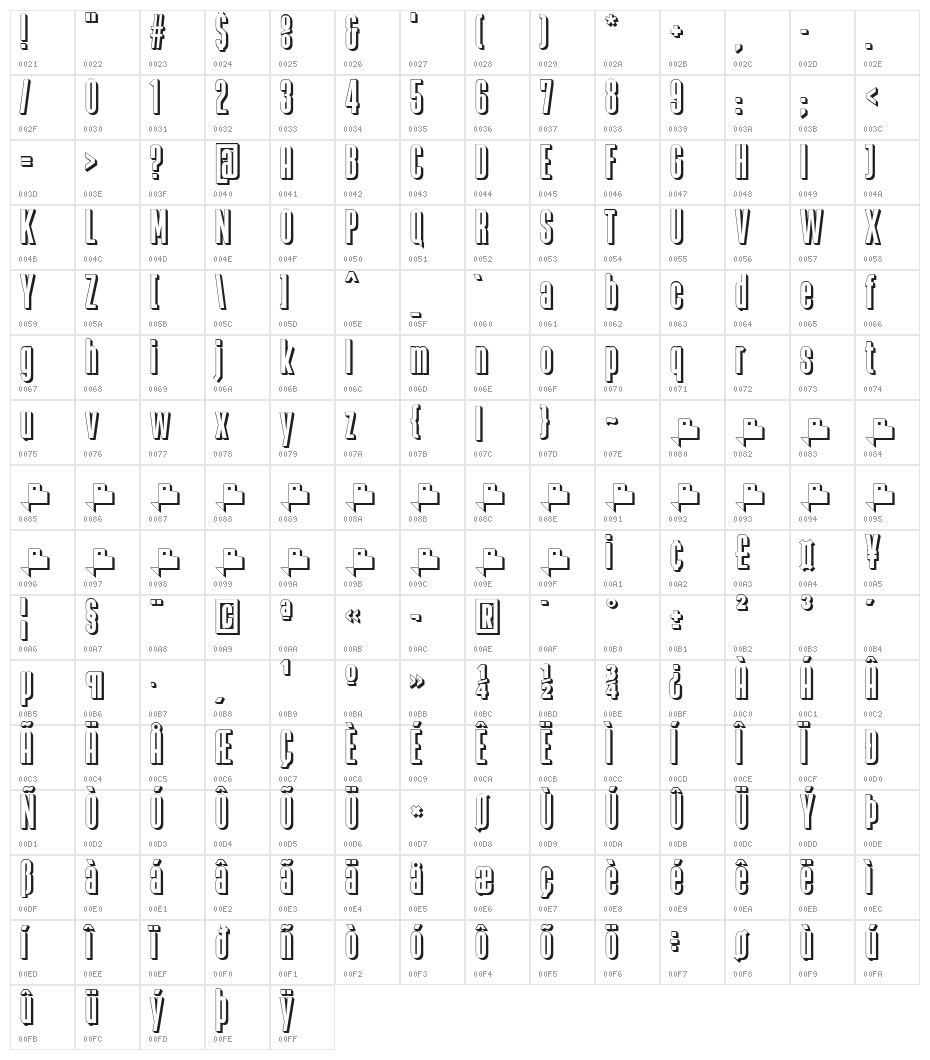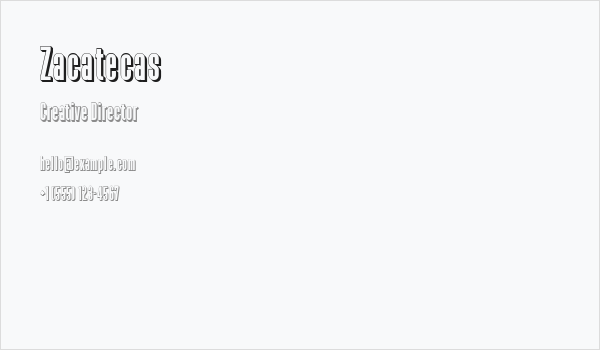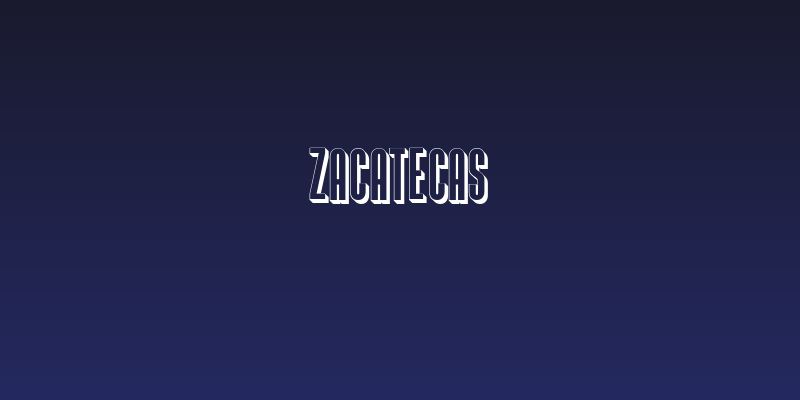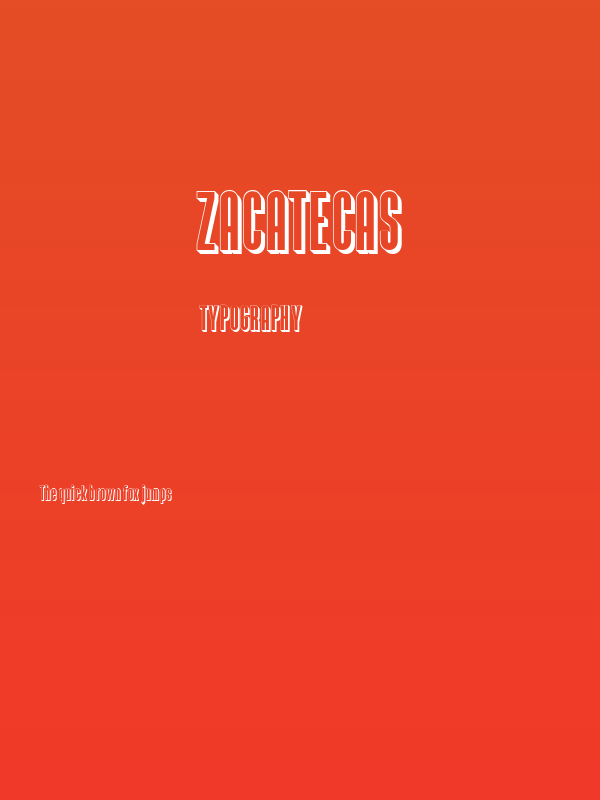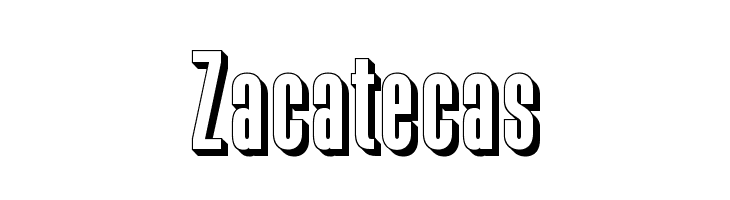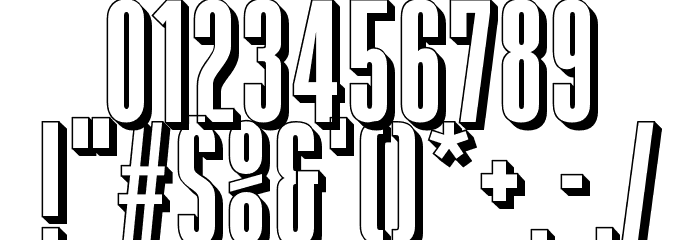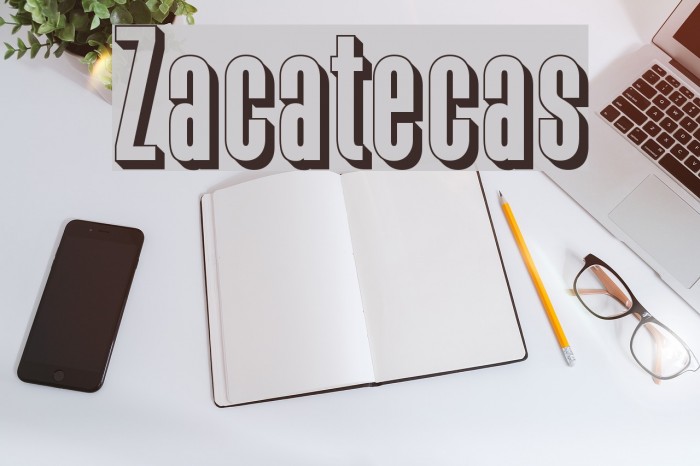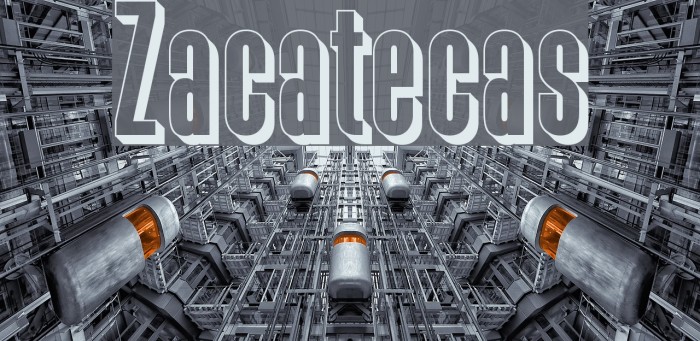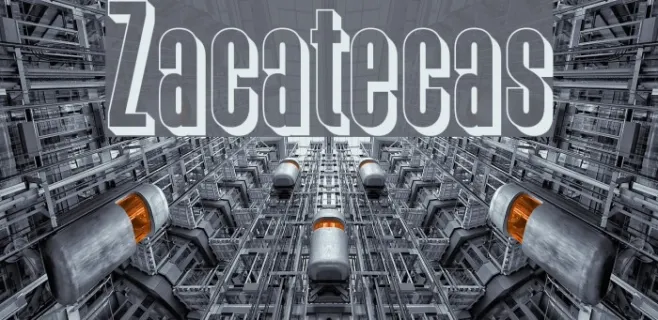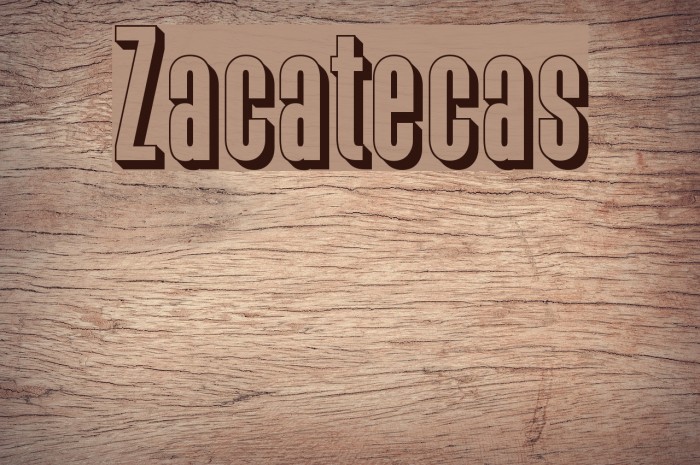
Zacatecas Font
Zacatecas Description
This font features a bold and impactful design with a three-dimensional shadow effect that gives it a striking appearance. The characters are tall and narrow, with a strong vertical emphasis, making them stand out prominently. The uppercase and lowercase letters maintain a consistent style, with clean lines and sharp edges. The numerals and special characters are equally bold, ensuring uniformity across all elements. This font's unique shadowing adds depth and dimension, making it ideal for eye-catching designs.
| Proposed Projects | This font is perfect for poster designs, headlines, logos, and any project that requires a bold and attention-grabbing typeface. |